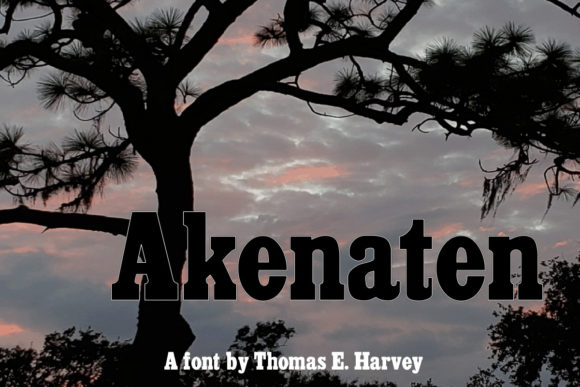
Dive into the world of typography with Akenaten, a captivating serif font tailored to make a statement. Born from the creative mind of Thomas E. Harvey, this typeface exudes an air of boldness and elegance that will transform your designs into masterpieces.
As a part of our exclusive font collection, Akenaten stands out as the epitome of distinction. Its sharp, defined serifs and robust letterforms command attention, making it the perfect choice for headlines, logos, and any text that demands to be noticed.
Whether you're a seasoned designer or just starting your typographic journey, Akenaten is the key to unlocking your creative potential. Its versatility knows no bounds, effortlessly complementing a wide range of design styles. Picture your captivating posters, striking social media graphics, and impactful branding materials – Akenaten empowers you to leave an unforgettable mark.
Experience the allure of Akenaten today, and let its bold presence ignite your designs. With each character you type, you'll feel the surge of inspiration that only a font of this caliber can provide. Join the league of discerning designers who have embraced Akenaten, and elevate your creations to new heights.